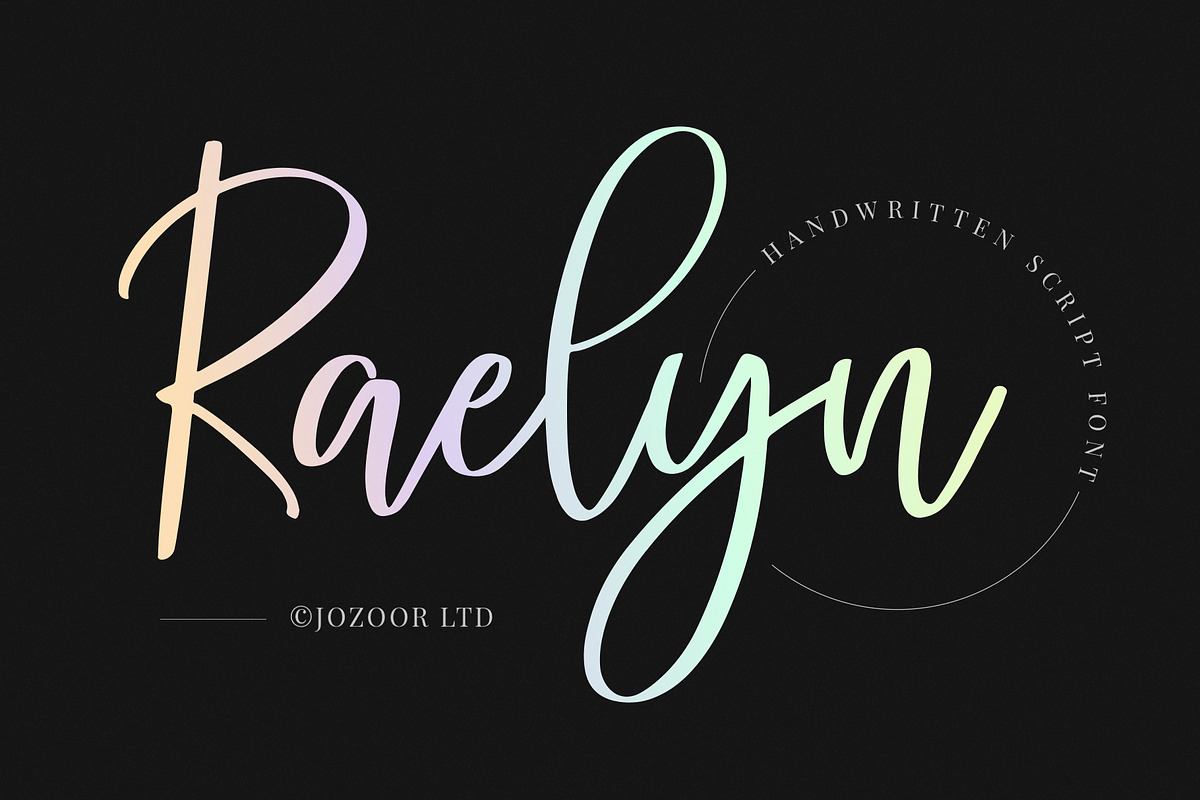
Raelyn - Lovely Script Font Free Download
Raelyn Lovely Script Font Free Download
Raelyn Lovely Script Font Free Download is a romantic and graceful handwritten typeface, perfect for adding a personal and elegant touch to your designs. With flowing strokes, delicate curves, and a charming handcrafted style, Raelyn is ideal for wedding invitations, feminine branding, love notes, social media graphics, and elegant product packaging.
This font exudes warmth and sophistication—its signature-style lettering brings a feeling of intimacy and beauty to every project. Whether you're crafting a bridal logo or a heartfelt quote, Raelyn creates a timeless, polished look.
Highly readable and versatile, it shines in both print and digital use, making it a must-have for any designer’s font collection.